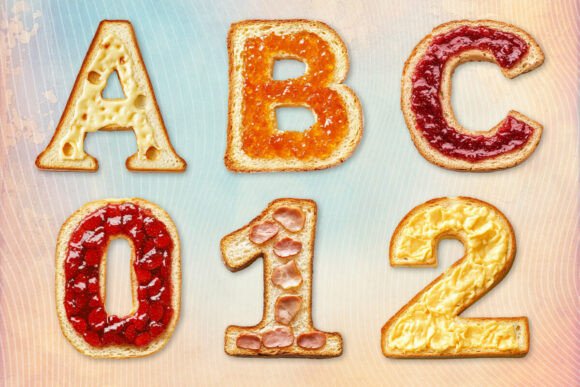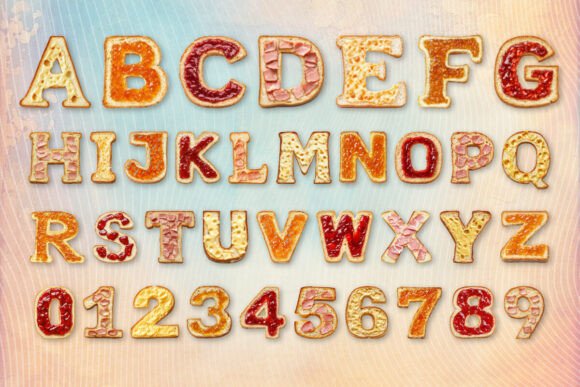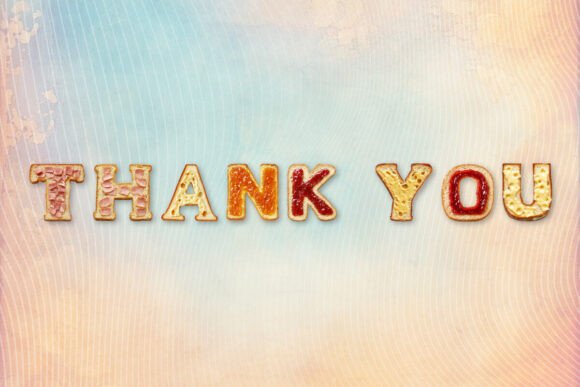
Bread Font
Savor the whimsical charm of the Bread Alphabet Font, an artistic blend of flavors and letters, encompassing 36 unique characters made with love. Not only does it feature the traditional 26 English alphabets, but it also presents the digits from 0-9, resulting in a delightful mix of creativity and functionality. This exquisite font type marries the textures of white bread, the sweet allure of strawberry jam, the tanginess of orange marmalade, together with the savory touch of cheese and ham. We invite you to indulge in the Bread Alphabet Font, a typographic feast that will leave a lasting impression on your design.Note!This product is a color font (Opentype-SVG) and is compatible with PhotoShop, Illustrator, Silhouette, and Inkscape. The OTF and/or TTF files of this product are not compatible with Cricut. For more information on how to use this type of font please check our Ultimate Font Guide .